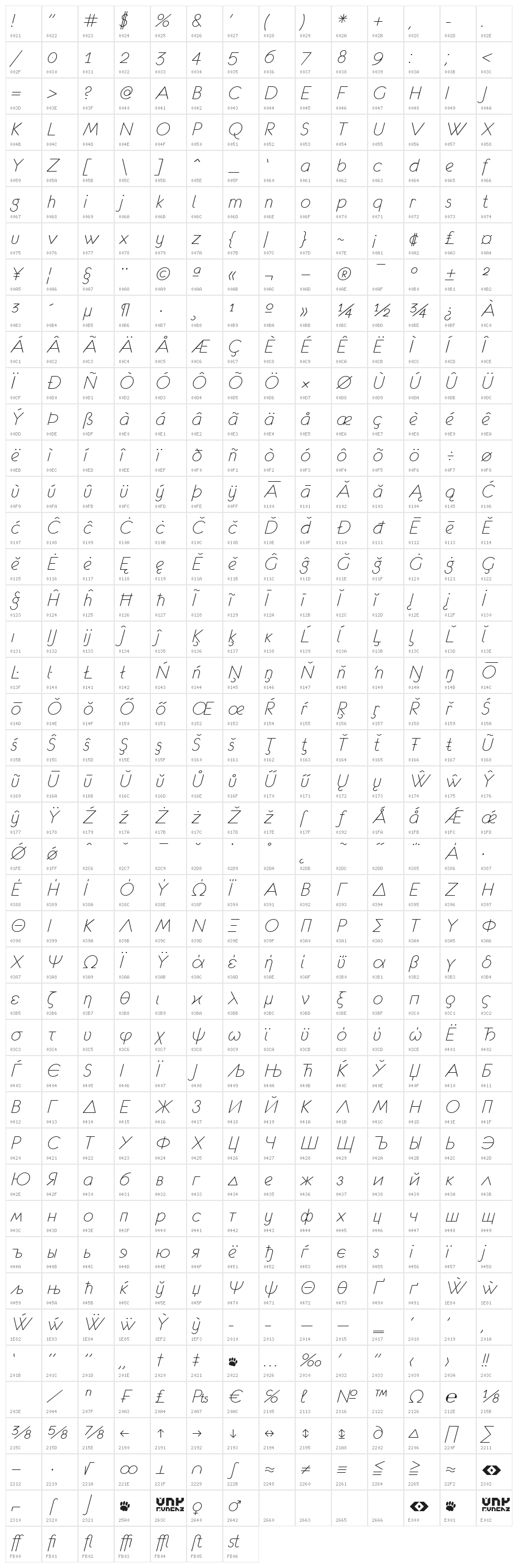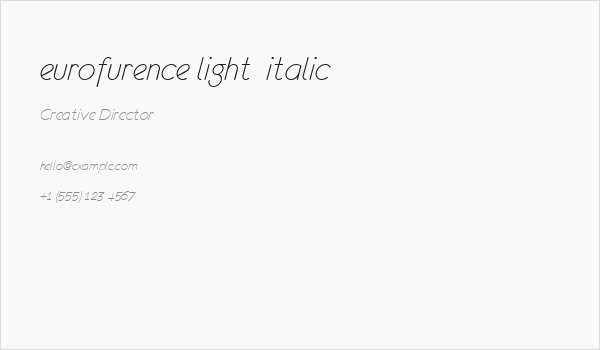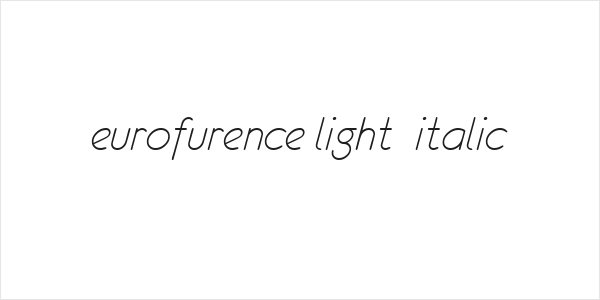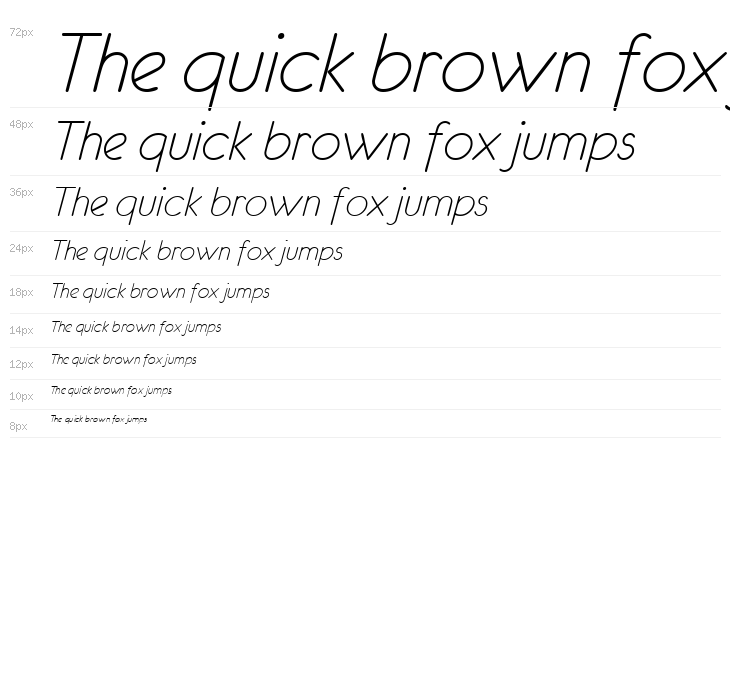
eurofurence light italic Font
eurofurence light italic Description
This font features a sleek and modern design with a light weight and italic style. The characters are elegantly curved, providing a sense of fluidity and motion. The uppercase and lowercase letters maintain a consistent slant, enhancing the italic effect. The numerals are clear and easy to read, complementing the overall aesthetic. Special characters are well-integrated, maintaining the font's cohesive look. The thin strokes and minimal contrast give it a refined and sophisticated appearance, making it suitable for contemporary design projects.
| Proposed Projects | Ideal for branding, fashion magazines, modern websites, and elegant invitations. |